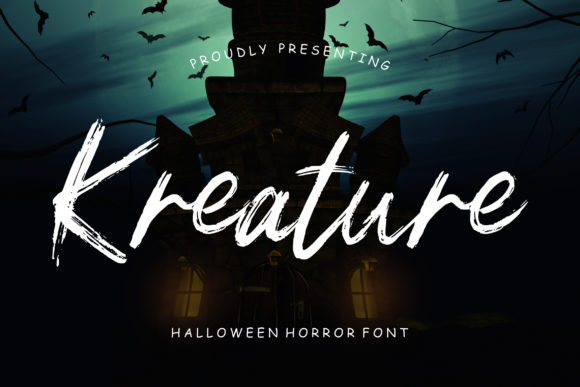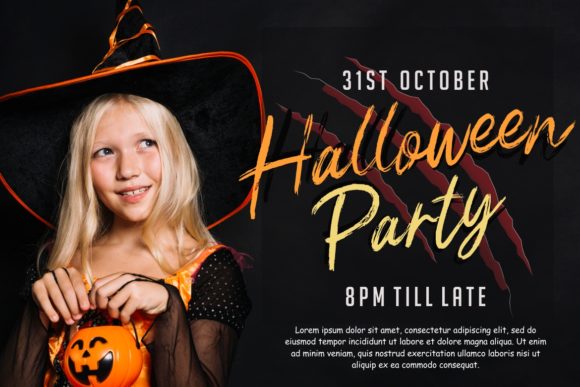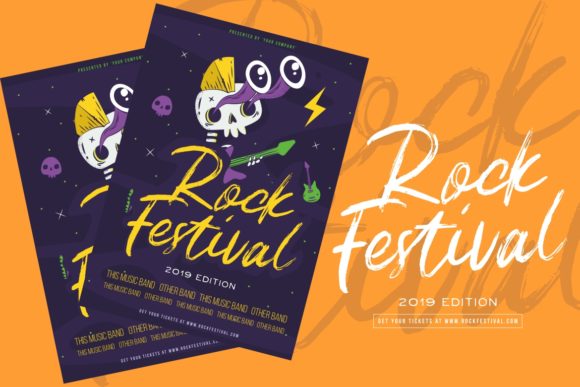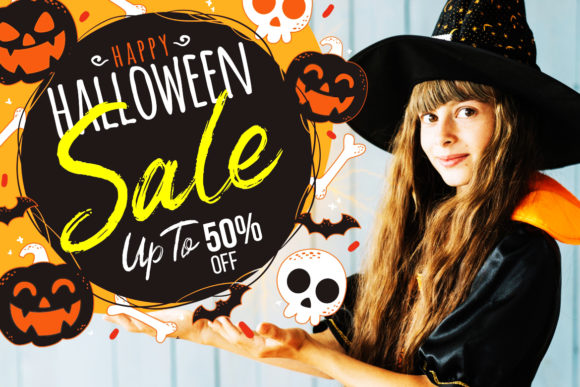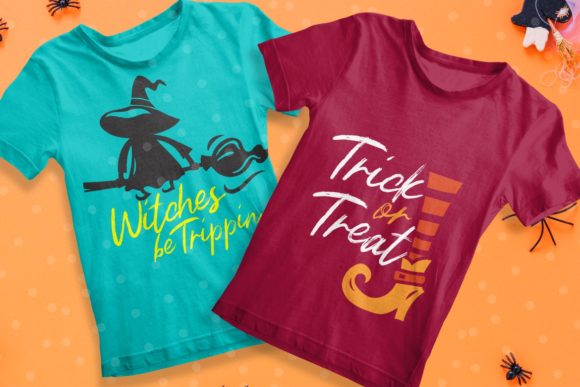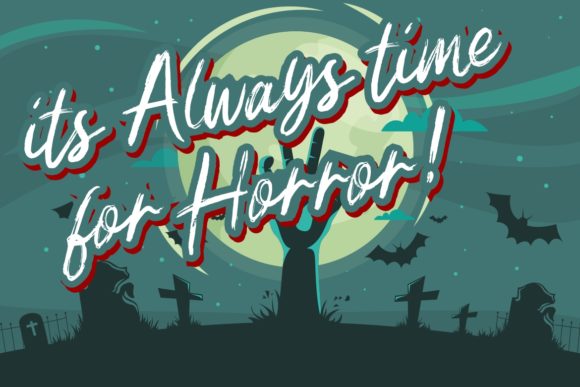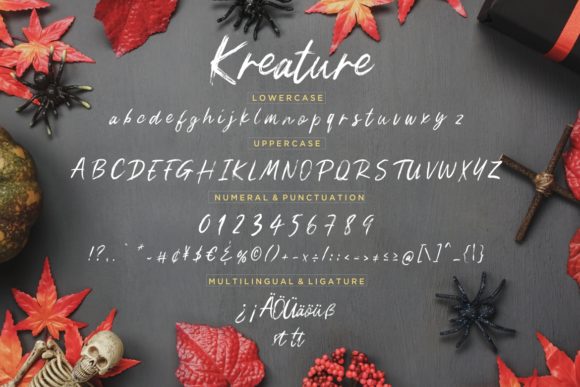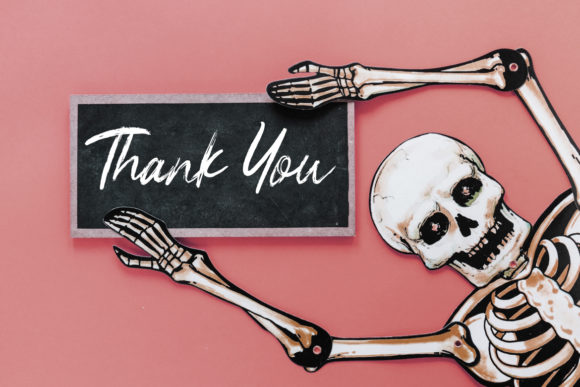
Kreature Font
About Kreature Font
Kreature is a bold handcrafted font that perfectly evokes the scariest time of the year. Use it to elevate any Halloween or Horror project!